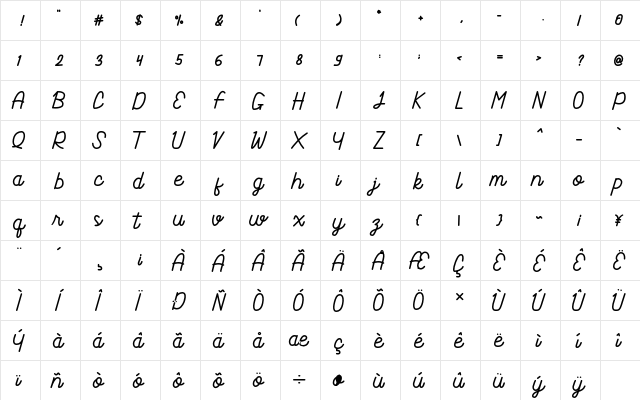
Nagoya Regular
| Designer | Gustian Agung Asprilla |
Design Context for Nagoya Typeface
Nagoya is a composed and adaptable typeface that performs quietly and consistently across a wide range of design contexts.